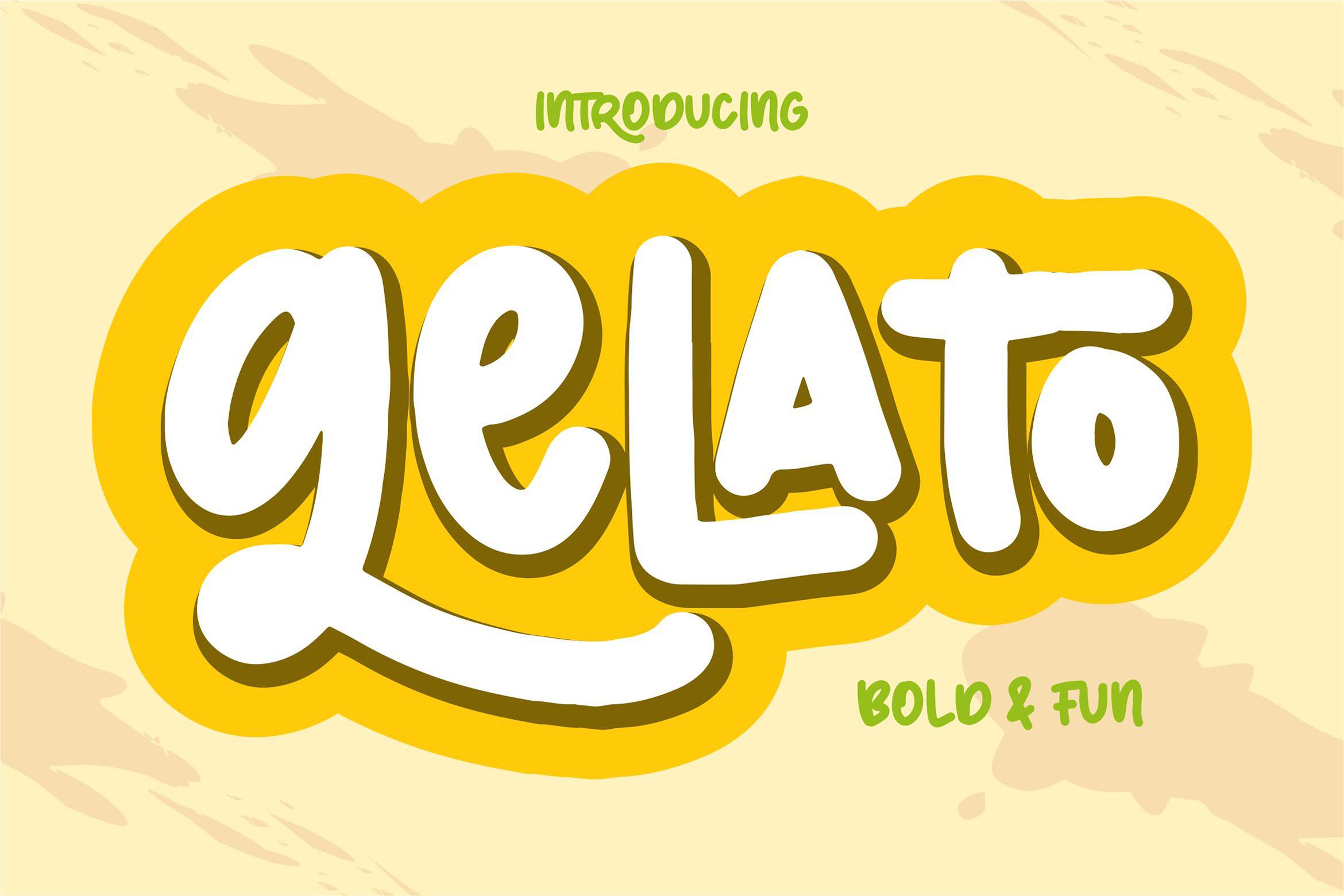
Gelato Font Description
Gelato is a cheery, fun and smart display font. Whether you are using it for cartoon-related designs, children games, quotes, titles, brand names, book covers, posters, or just any creation that requires a touch of joy, this font is a great choice.